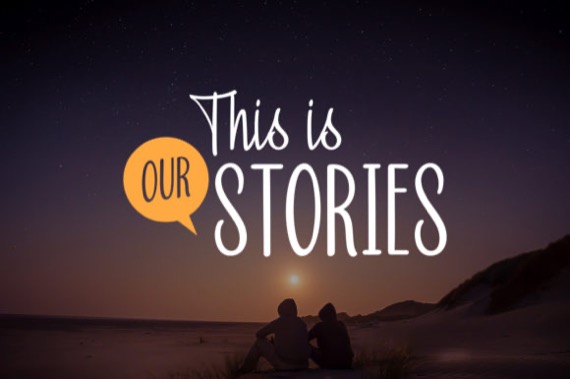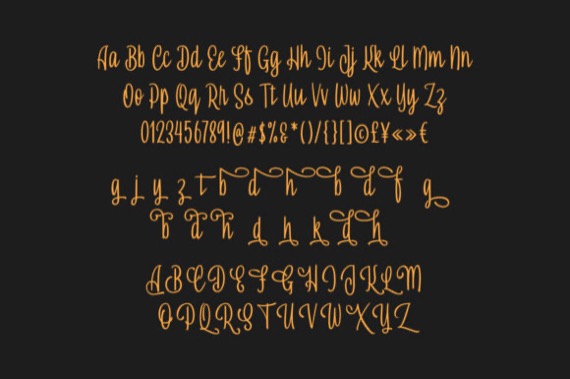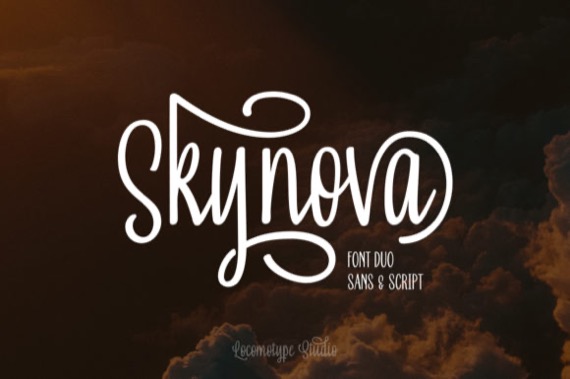
A chic and cute handwritten sans serif font from Locomotype, Skynova is a playful and delicate font with a bold twist. It will turn any design project into a stand out!
Skynova Sans Script Font Duo